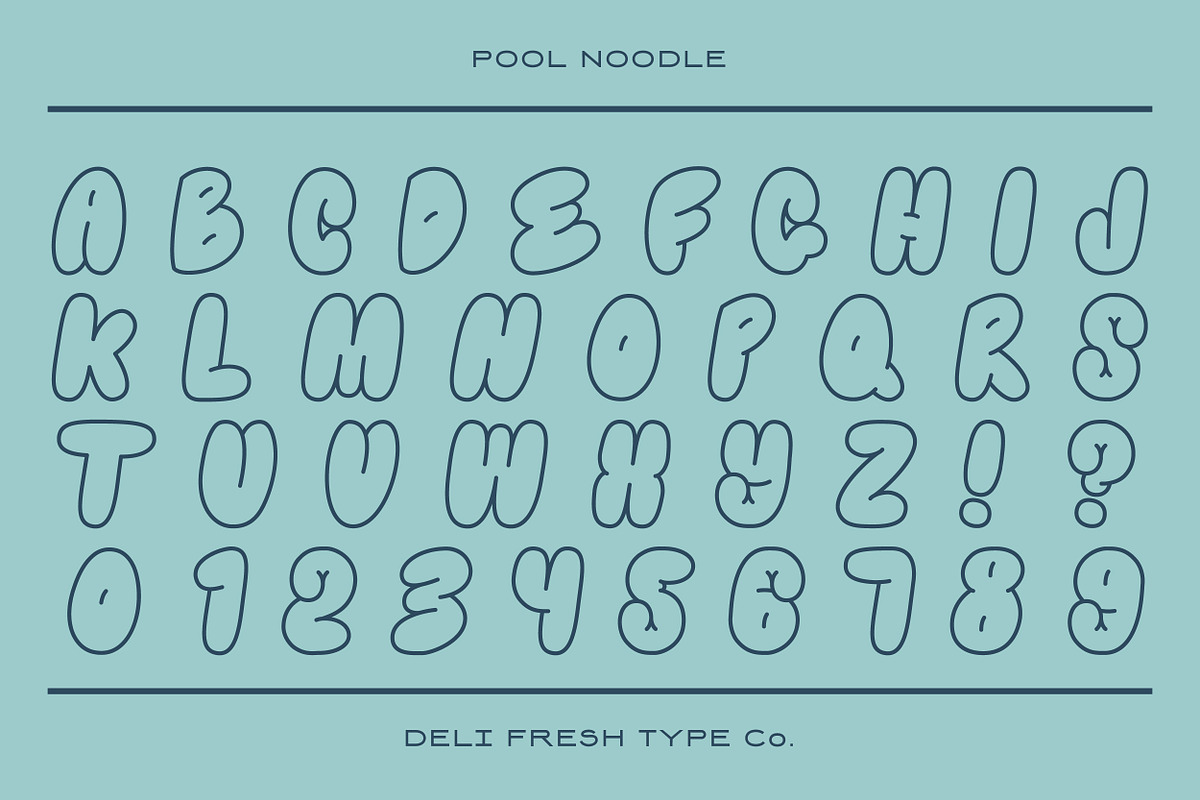
Pool Noodle is a new typeface inspired by 90s bubble letters and middle school notebook doodles. Comes with upper-case letterforms, numbers, and a smattering of punctuation and special characters. You can use this font for any purposes, such as poster, sticker, quotes or even for your branding.